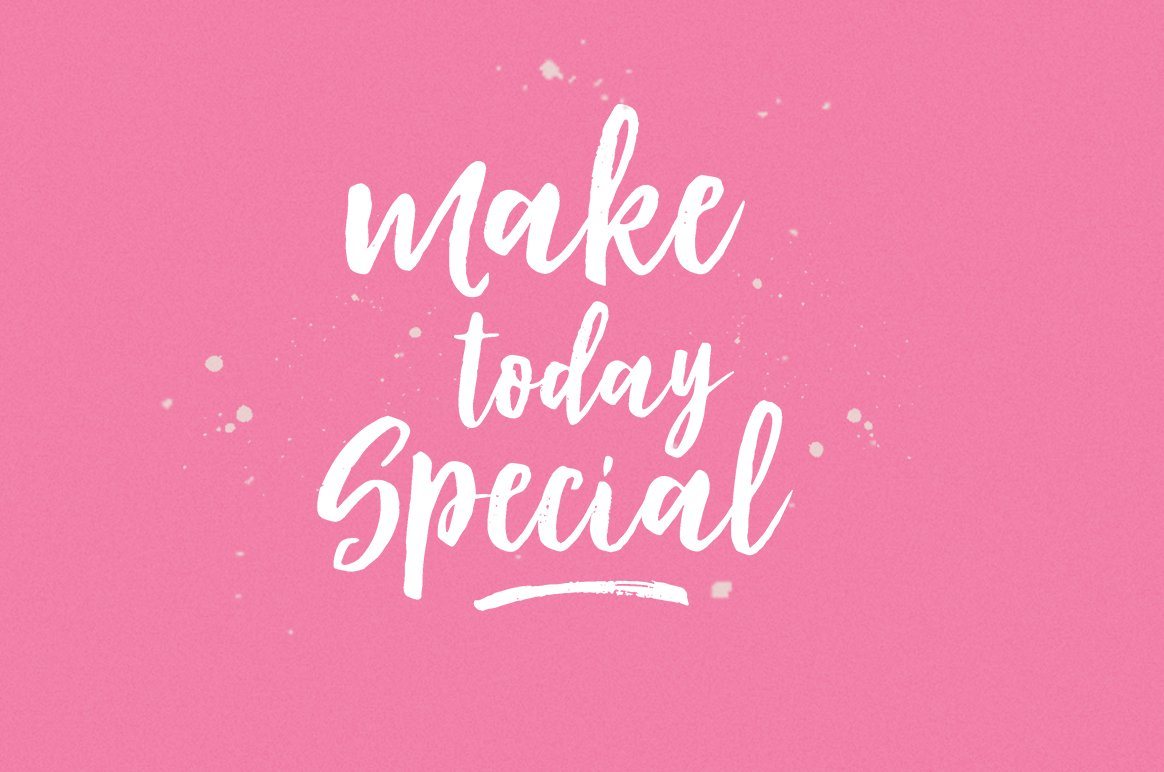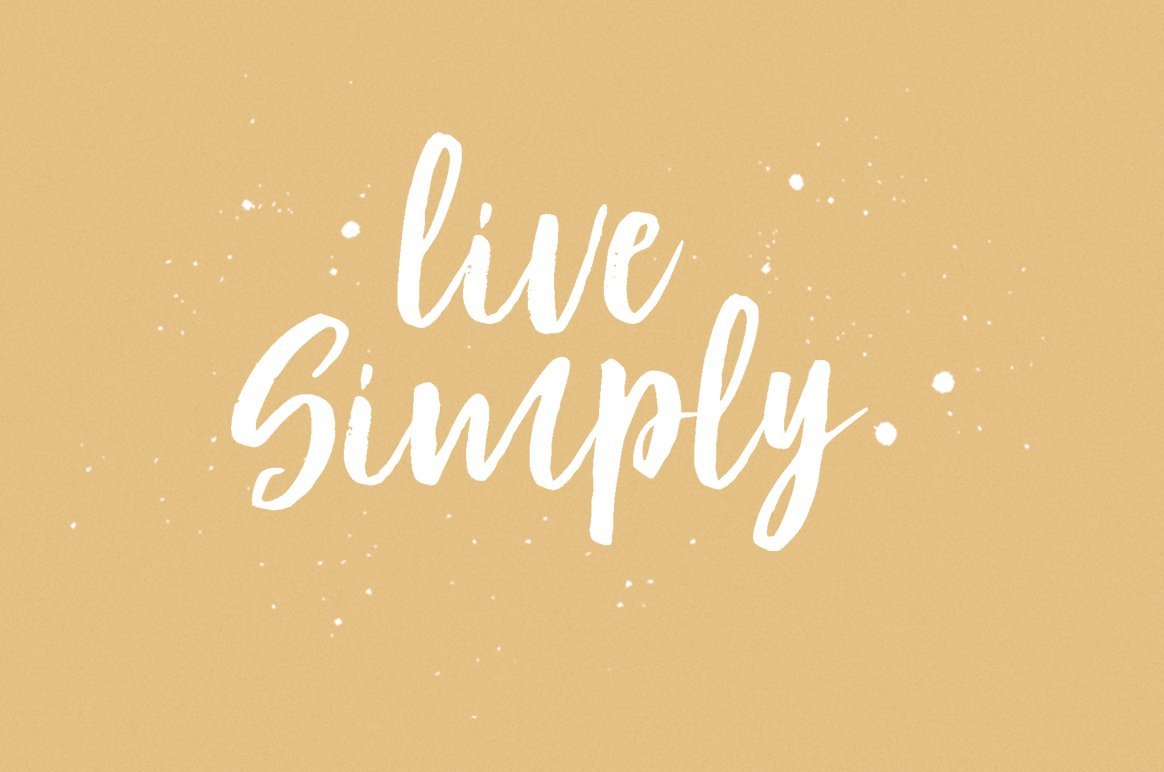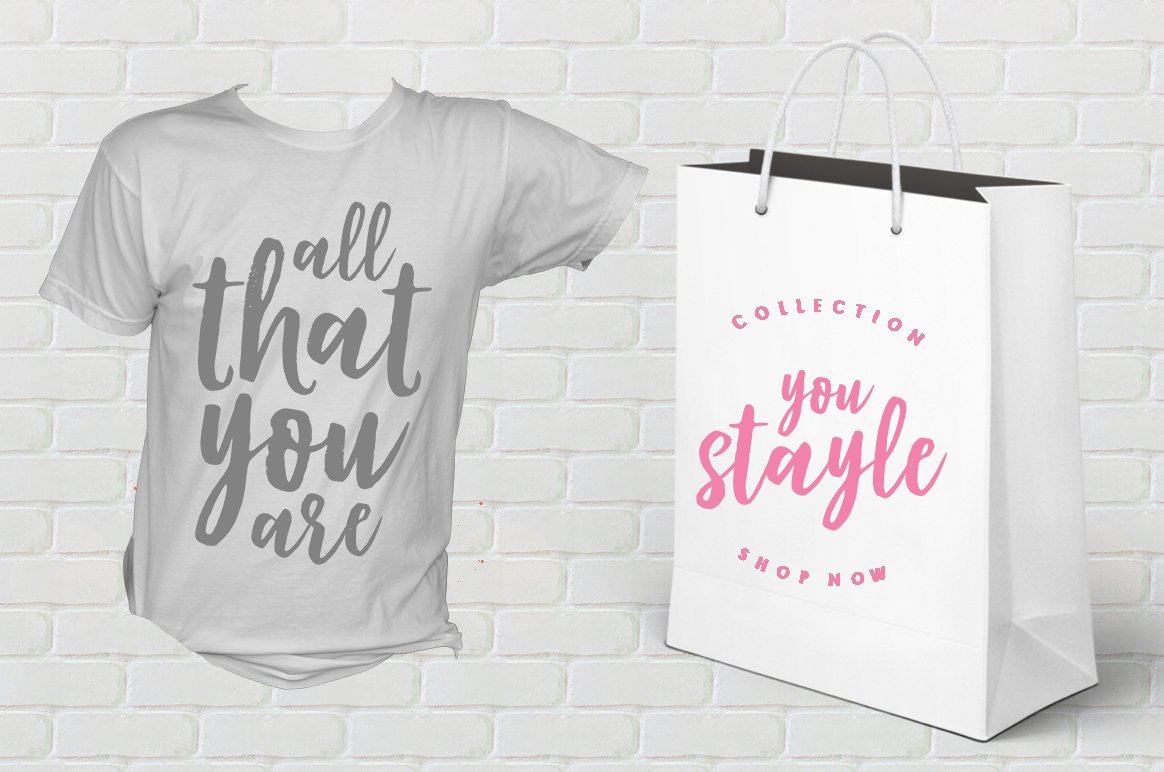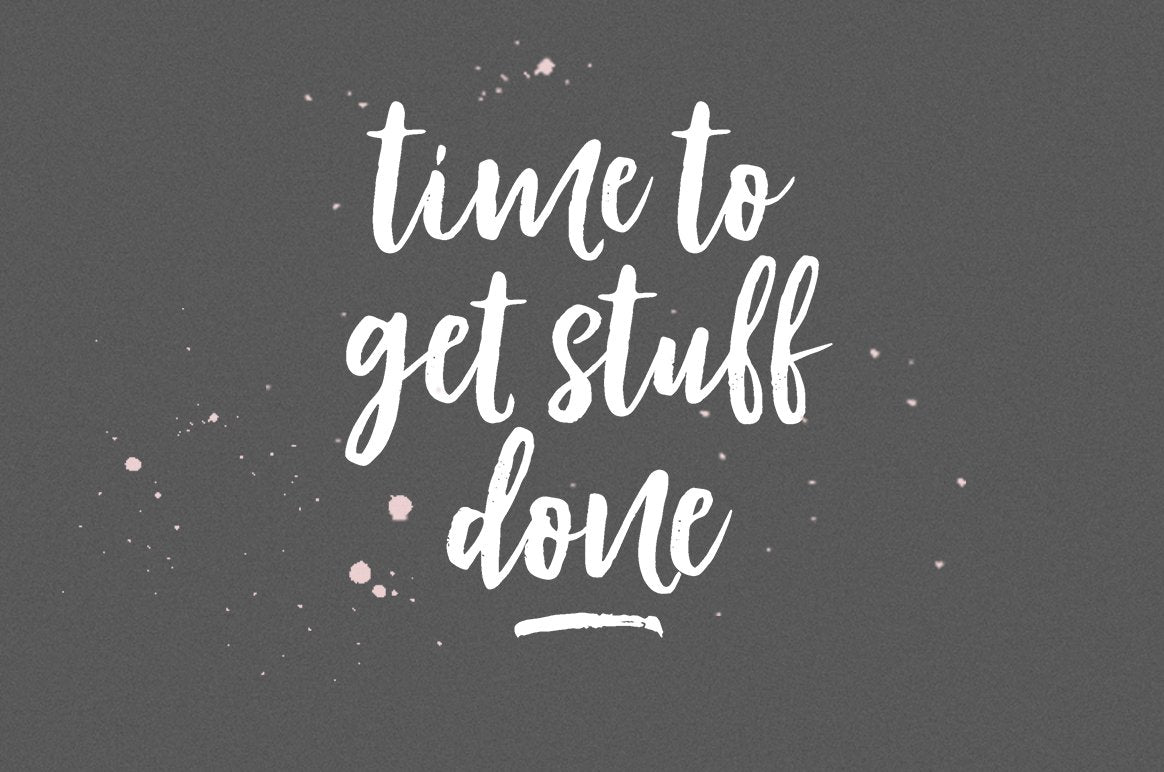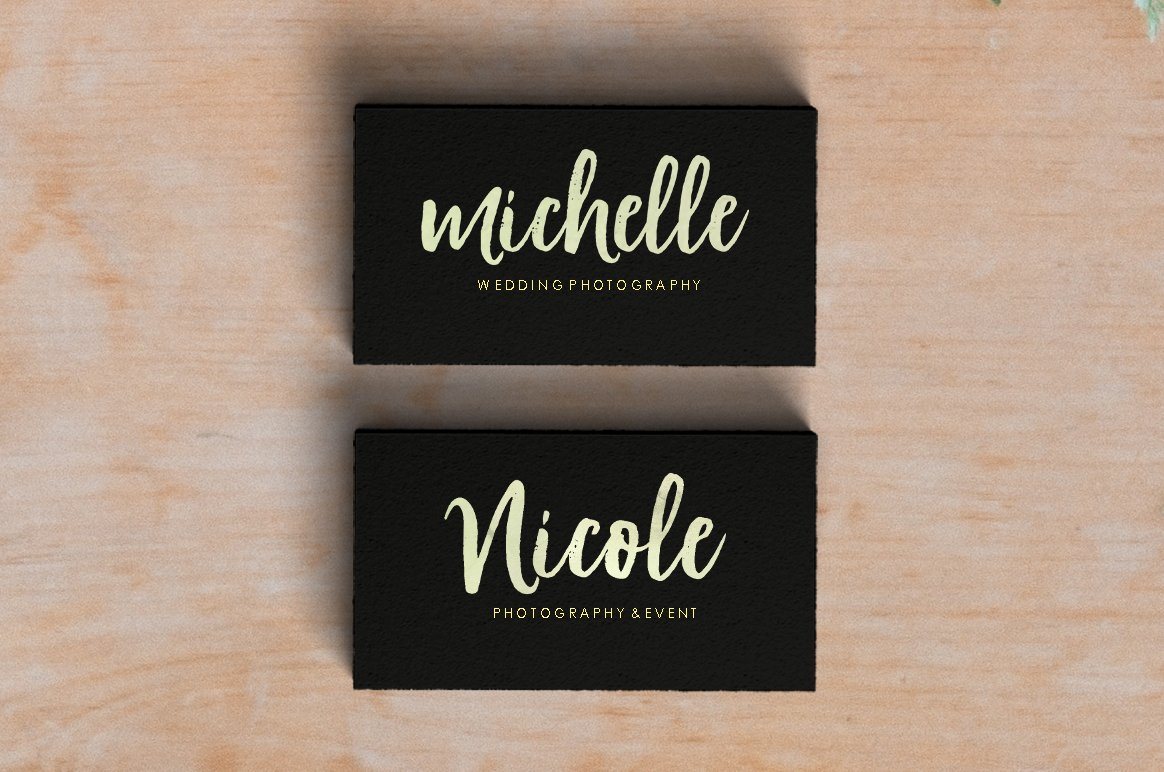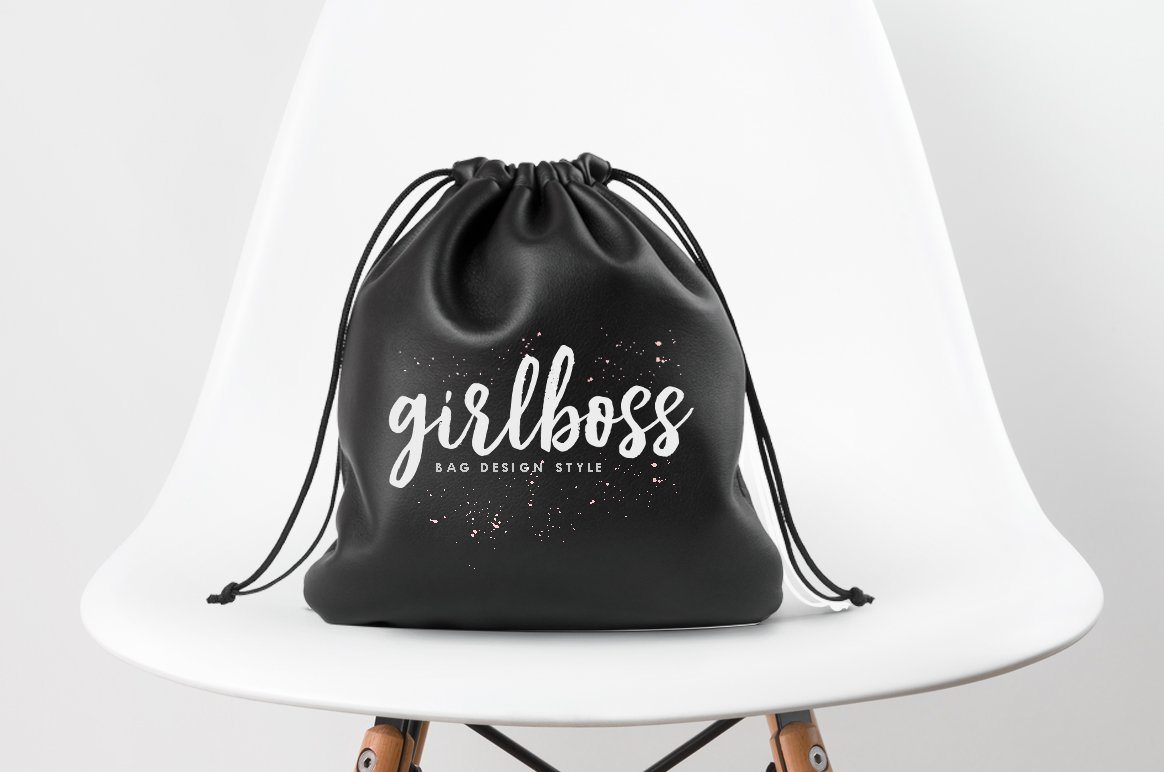
Modestyle Script
About Modestyle Script
Modestyle Script is a modern brush font, organic, dynamic and energetic sytle.Can used for various purposes. such as the title, signature, logo, correspondence, wedding invitations, letterhead, signage, labels, newsletters, posters, badges, etc. Files included: Modestyle Script (otf, ttf) To enable the OpenType Stylistic alternates, you need a program that supports OpenType features such as Adobe Illustrator CS, Adobe Indesign & CorelDraw X6-X7, Microsoft Word 2010 or later versions. How to access all alternative characters, using Windows Character Map with Photoshop: https://www.youtube.com/watch?v=Go9vacoYmBw How to access all alternative characters using Adobe Illustrator: https://www.youtube.com/watch?v=XzwjMkbB-wQ Modestyle Script is coded with PUA Unicode, which allows full access to all the extra characters without having special designing software. Mac users can use Font Book , and Windows users can use Character Map to view and copy any of the extra characters to paste into your favourite text editor/app. Thanks so much for looking and please let me know if you have any questions.